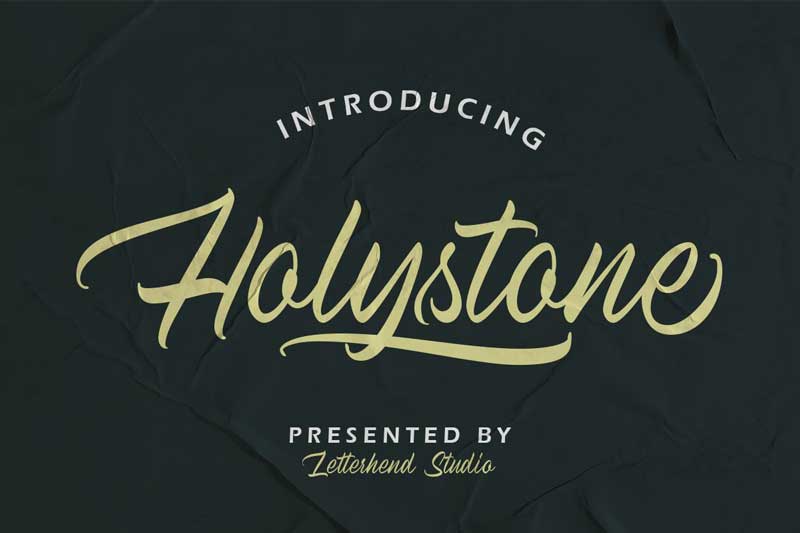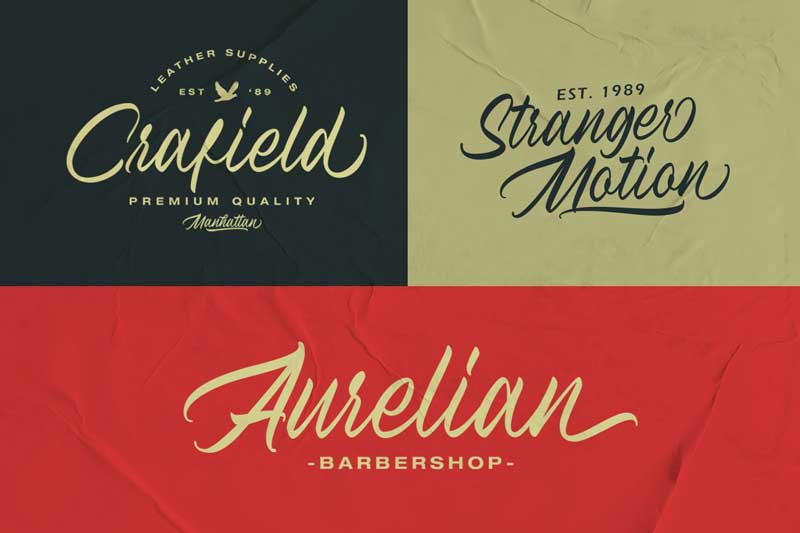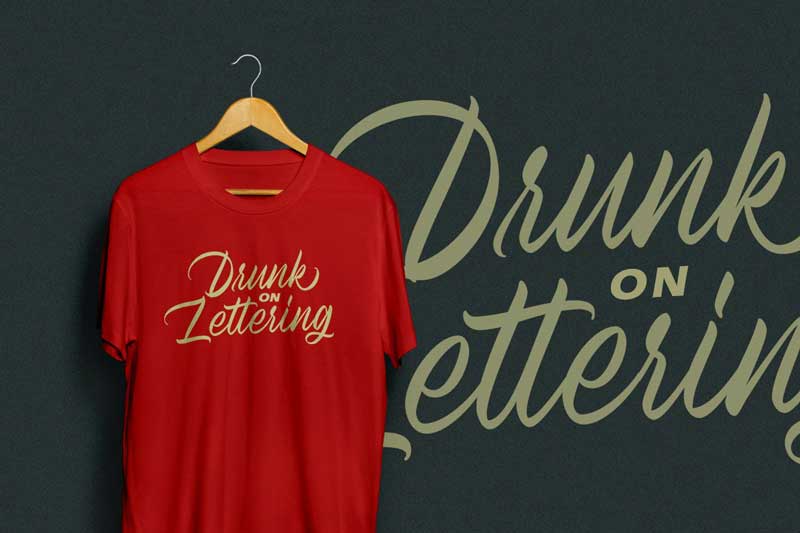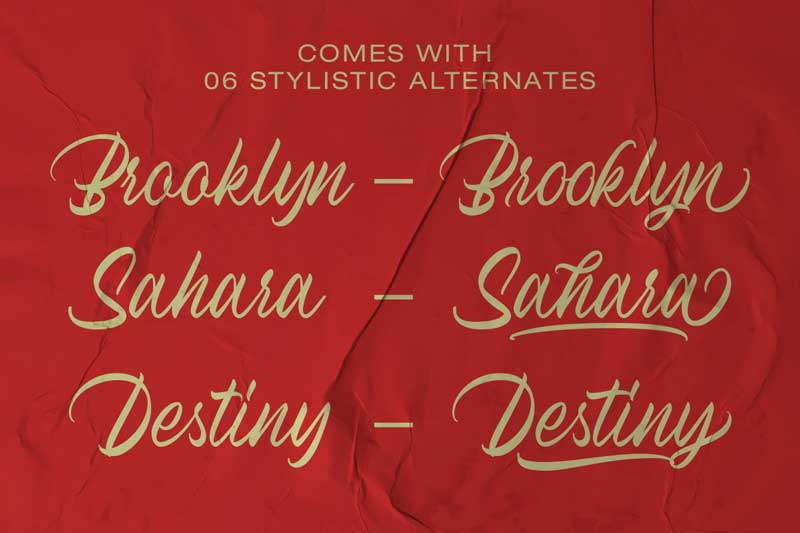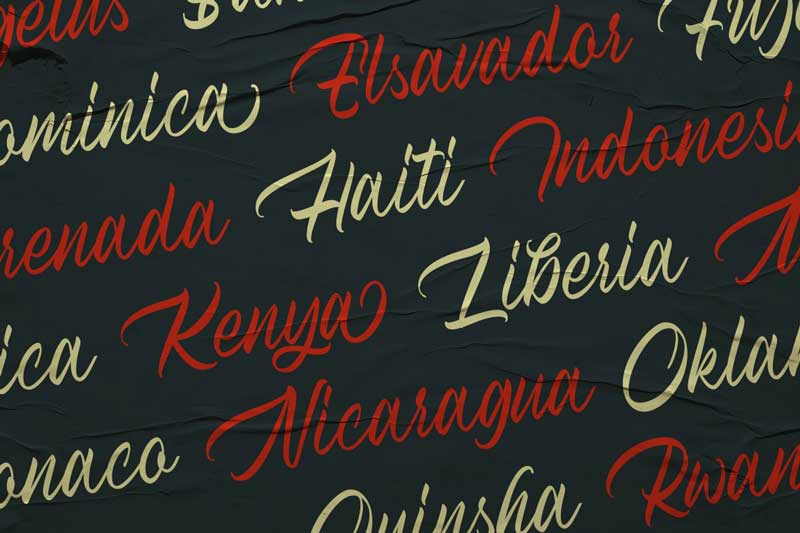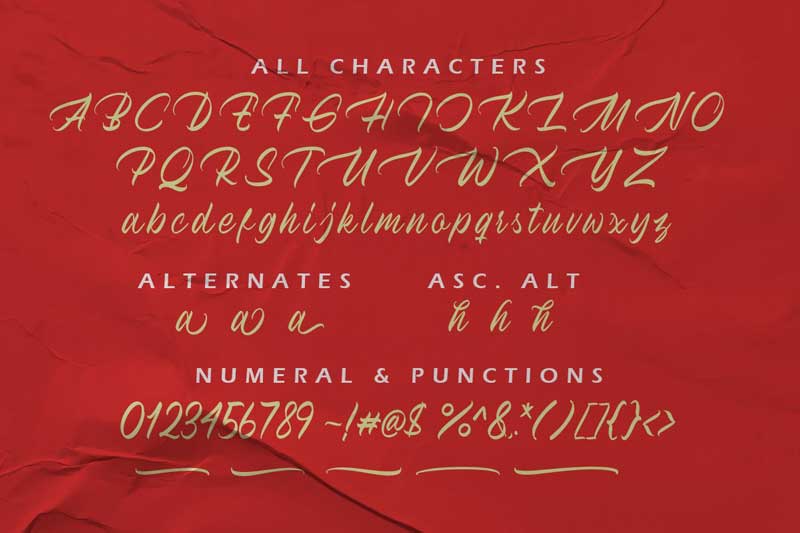
Introducing, Holystone. A natural handwriting script typeface. Very suitable to be used as a headline, Instagram post, and stories, logos, magazines, books, greeting/wedding cards, packaging, fashion, makeup, stationery, novels, labels or any type of advertising purpose.
Features :
• uppercase & lowercase
• numbers and punctuation
• multilingual
• ligatures
• alternates
• swashes